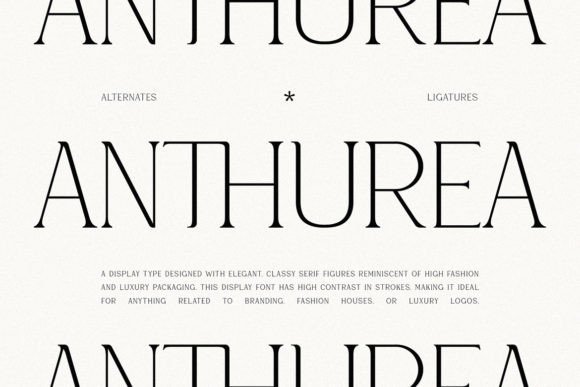
Introducing Anthurea Font: Elevate Your Designs with Elegance and Sophistication
In the world of typography, a well-crafted font can make all the difference in elevating your design from ordinary to extraordinary. If you’re a designer, crafter, or simply someone who appreciates the art of beautiful typography, you’re in luck. Say hello to Anthurea Font, a modern classy serif typeface that’s sure to bring a touch of elegance and sophistication to your projects.
A Timeless Elegance
Anthurea Font boasts an elegant and classic all-caps style that’s reminiscent of a bygone era. Its refined lines, precise curves, and balanced proportions evoke a sense of luxury and refinement, making it perfect for designs that require a touch of sophistication. Whether you’re working on a logo, invitation, or magazine, Anthurea Font is sure to bring a level of class and poise to your project.
Modern and Minimal
What sets Anthurea Font apart from other serif typefaces is its modern and minimal treatment. The font’s clean lines, subtle curves, and restrained ornamentation give it a fresh and contemporary feel that’s perfect for designers who want to create something new and exciting. At the same time, its classic undertones ensure that it remains timeless and versatile, making it suitable for a wide range of applications.
Endless Possibilities
Anthurea Font is incredibly versatile, making it perfect for a variety of design projects. Here are just a few ideas to get you started:
- Logotypes: Create a lasting impression with a custom logo that exudes elegance and sophistication.
- Printed quotes: Add a touch of class to your inspirational quotes and sayings.
- Invitations: Make your invitations stand out with a font that’s both refined and stylish.
- Cards: Create beautiful greeting cards for special occasions.
- Product packaging: Elevate your brand’s packaging with a font that’s both modern and luxurious.
- Headers: Add a touch of sophistication to your website or blog headers.
- Letterheads: Create professional-looking letterheads that make a lasting impression.
- Apparel: Design stylish and elegant apparel that stands out from the crowd.
- Web designs: Use Anthurea Font to create stunning web designs that exude elegance and refinement.
- Magazines and books: Use Anthurea Font to add a touch of sophistication to your publications.
PUA Encoded for Ease of Use
Anthurea Font is PUA (Private Use Area) encoded, which means that you can access all of the glyphs and swashes with ease. This makes it simple to customize your designs and add a personal touch to your projects. With Anthurea Font, you can focus on creating something beautiful, rather than getting bogged down in complicated font management.
Why Choose Anthurea Font?
So why choose Anthurea Font for your next design project? Here are just a few reasons:
- Elegant and sophisticated: Anthurea Font brings a level of refinement and luxury to your designs.
- Versatile: Suitable for a wide range of applications, from logos to magazines.
- Modern and minimal: A fresh and contemporary take on traditional serif typography.
- PUA encoded: Easy to use and customize.
- Timeless: A font that’s both classic and modern, ensuring your designs remain relevant for years to come.
In conclusion, Anthurea Font is a stunning serif typeface that’s sure to elevate your designs to new heights. With its elegant and sophisticated style, modern and minimal treatment, and PUA encoding, it’s the perfect choice for designers and crafters who want to create something truly special. Whether you’re working on a logo, invitation, or magazine, Anthurea Font is the perfect starting point or enhancement for your design. So why wait? Download Anthurea Font today and experience the power of beautiful typography for yourself.